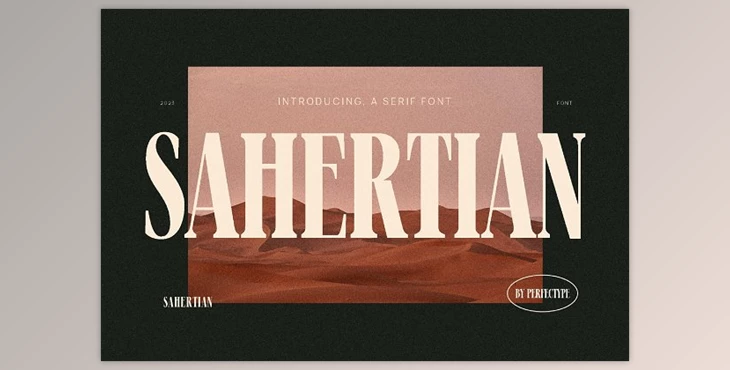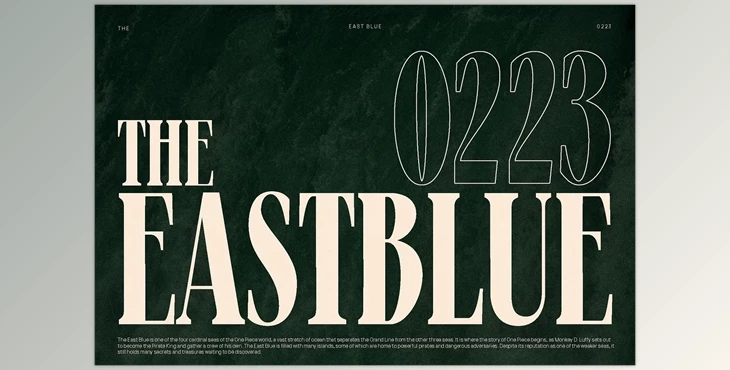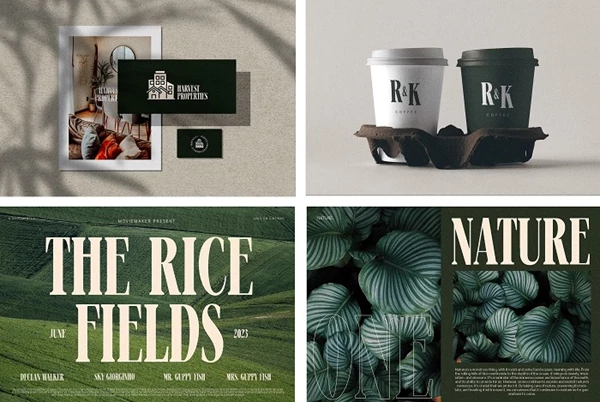
Sahertian - elegant serif font inspired by minimalist logos, ideal for designing templates, brochures, videos, branding, logos, invitations, layouts, crafting, and beauty designs.
Which font can be used to design templates, videos, advertising brands, logos, invitations, and layout designs?
You can use "Sahertian - elegant serif font".